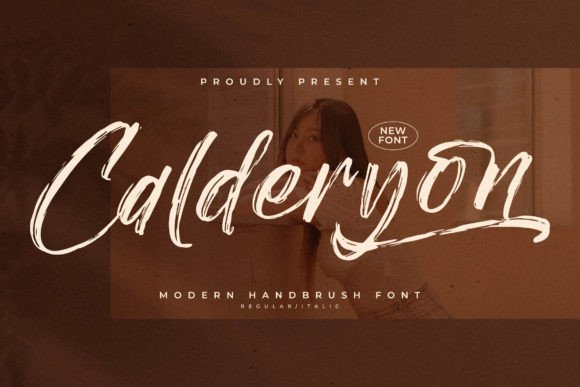
Introducing Calderyon Font, a script font family that exudes elegance, sophistication, and charm. Crafted by the renowned Glorytype Studio, Calderyon is not just a font; it's an artistic masterpiece that will add a touch of timeless beauty to your creative projects.
With its graceful curves, fluid strokes, and enchanting ligatures, Calderyon captures the essence of handwritten calligraphy, evoking a sense of intimacy and personal connection. Whether you're designing wedding invitations, branding projects, or creating eye-catching posters, Calderyon will elevate your designs to new heights.
Imagine your wedding invitations adorned with Calderyon's delicate strokes, conveying the joy and love of your special day. Or picture your brand logo infused with Calderyon's timeless charm, making a lasting impression on your customers. Let Calderyon's graceful lines dance across your posters, capturing the attention of passersby and leaving them captivated by your message.
The versatility of Calderyon knows no bounds. Its elegant script style seamlessly complements homeware designs, product packaging, and mugs, adding a touch of sophistication to your everyday items. Quotes and posters adorned with Calderyon's graceful letters inspire and uplift, while shopping bags and t-shirts featuring its charming script make a fashion statement that speaks volumes.
Unleash your creativity with Calderyon, and transform your designs into works of art. Embrace the beauty of handwritten calligraphy, and let your imagination soar. Elevate your branding, captivate your audience, and create designs that leave an unforgettable mark. Calderyon Font, a timeless masterpiece awaits your creative touch.